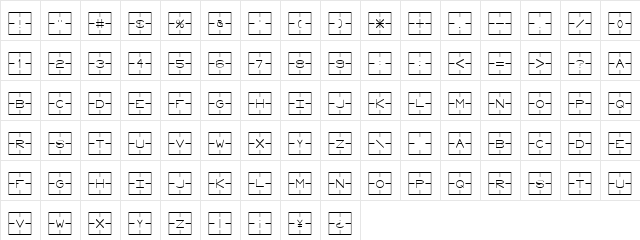
Laser Systems Normal
Design Context for Laser Systems Typeface
Laser Systems is a composed and adaptable typeface that performs quietly and consistently across a wide range of design contexts.